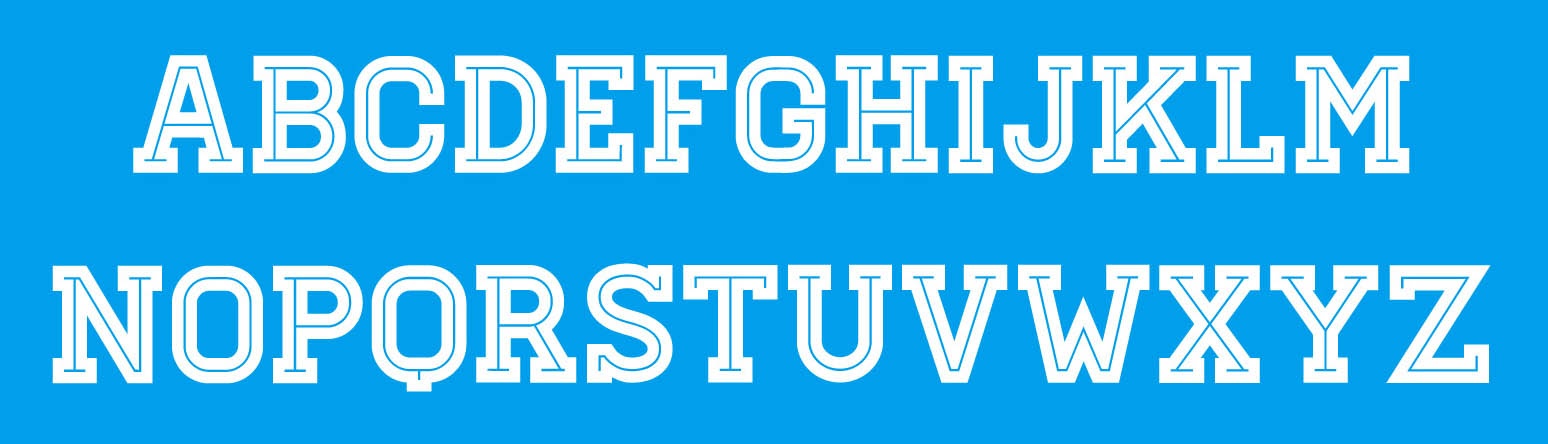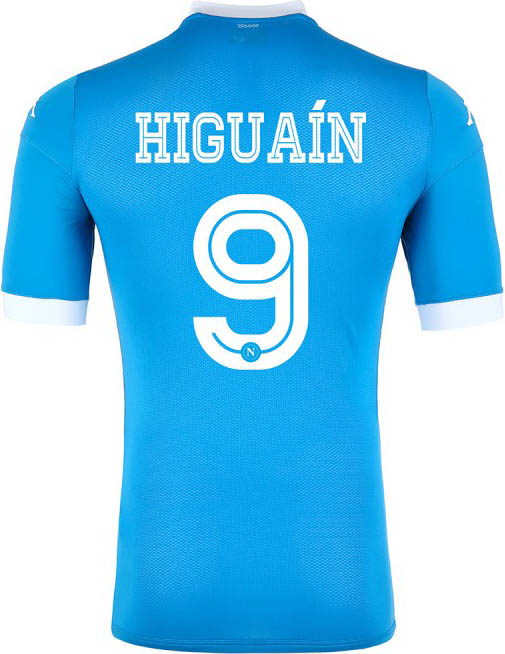
Napoli 15-16 Font Revealed
To fit the new Napoli jerseys, Kappa and the Italian club have designed a totally-new, unique typeface for player names and numbers on the back of the shirts.
Kappa became Napoli's new shirt supplier with the start of the 15-16 season and already released the smart Napoli 15-16 kit, creating a clean design utilizing the club's classic sky blue and white colors.
Napoli 15-16 Font
The new Napoli font can be seen on the Kappa Napoli 15-16 Home Jerseys of Hamsik, Higuaín and Mertens.
Very bold in its appearance, the new Napoli 15-16 typeface has a thin line inside of it, similar to the new Chelsea font. The Napoli logo is placed inside the Napoli 15-16 shirt numbers.
Continuing the inline font style of the numbers, the letters used for player names on the new Napoli 15-16 shirts also feature a thin line on the inside, working well with the initial broadness of the type.